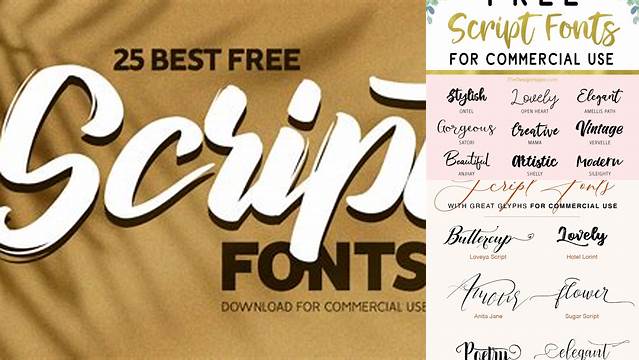
Free Script Fonts: Download For Commercial Use
Are you on the lookout for script fonts that can add a touch of elegance and personality to your designs, and are free for commercial use? Well, you've landed in the right spot! In this comprehensive guide, we're diving deep into the world of script fonts, exploring why they're so popular, what makes them unique, and where you can find some fantastic options without spending a dime. Whether you're a seasoned designer or just starting your creative journey, understanding script fonts and their licensing is crucial for creating impactful and legally sound projects. So, let's get started and discover the beauty and versatility of free script fonts for commercial use!
What are Script Fonts?
First off, let's break down what we mean by script fonts. Think of handwriting – that's essentially what script fonts aim to emulate. These fonts are designed to resemble the flowing strokes of handwriting, creating a sense of personality, warmth, and sophistication. Unlike blocky or sans-serif fonts, script fonts have a more organic and fluid feel. They often feature connecting strokes between letters, mimicking the natural flow of cursive writing. This style can add a touch of elegance, charm, or even whimsy to your designs, depending on the specific font you choose. But script fonts aren't just a single category; they come in a wide variety of styles, each with its own unique characteristics and applications. For instance, you have classic calligraphy-inspired scripts that evoke a sense of tradition and formality, perfect for wedding invitations or high-end branding. Then there are more modern and playful scripts that feel casual and approachable, ideal for logos, social media graphics, or even children's books. There are brush scripts, which have a textured, hand-painted feel, and vintage scripts that harken back to the golden age of advertising. The sheer diversity of script fonts means there's something out there for every project, every brand, and every creative vision. But with this variety comes the importance of understanding how to use script fonts effectively. Because of their decorative nature, script fonts are best used sparingly. Overusing them can make your design cluttered and difficult to read. They generally work best for headings, logos, or short bursts of text where you want to make a statement. Pairing them with a simpler, more legible font for body text is often a winning strategy. This creates a visual hierarchy and ensures that your message is both beautiful and clear. And of course, before you use any font, especially for commercial purposes, it's crucial to understand the licensing terms. Which brings us to our next point...
Why Use Script Fonts?
Let's talk about why using script fonts can be a game-changer for your designs. Script fonts bring a unique flair that other font styles often can't match. They inject personality and warmth into your projects, making them feel more human and less sterile. Think about it – a beautifully crafted script font can instantly elevate a logo, adding a touch of elegance or playfulness, depending on the style. It can transform a simple invitation into a sophisticated announcement, or give a website a friendly and approachable vibe. The versatility of script fonts is one of their greatest strengths. Whether you're aiming for a classic, vintage, modern, or whimsical feel, there's a script font out there that can perfectly capture the mood. A flowing calligraphy-inspired script can evoke a sense of timeless elegance, ideal for wedding invitations, formal events, or high-end branding. A bold brush script can add a dynamic, hand-crafted feel, perfect for logos, posters, or social media graphics. And a playful, casual script can inject a sense of fun and approachability, making it great for children's books, informal invitations, or quirky branding. But the power of script fonts goes beyond just aesthetics. They can also be a powerful tool for storytelling and conveying emotions. The swooping curves and elegant flourishes of a script font can communicate sophistication and luxury. The bold strokes of a brush script can convey energy and excitement. And the delicate lines of a handwritten-style script can create a sense of intimacy and personal connection. When choosing a script font, it's important to consider the message you want to convey and the overall tone of your project. A script font that's perfect for a wedding invitation might not be the best choice for a corporate website, and vice versa. Think about your target audience, the context in which the font will be used, and the emotions you want to evoke. Another key consideration is readability. While script fonts can be visually stunning, they can also be challenging to read if overused or used in the wrong context. That's why it's generally best to use script fonts sparingly, reserving them for headings, logos, or short bursts of text where you want to make a statement. Pairing them with a simpler, more legible font for body text is a great way to create visual contrast and ensure that your message is clear and easy to read. And of course, always remember the importance of licensing. If you're planning to use a script font for commercial purposes, you need to make sure you have the proper license to do so. Which leads us to the next crucial topic...
Where to Find Free Script Fonts for Commercial Use
Alright, let's get to the good stuff: where to find free script fonts for commercial use! The internet is a vast ocean of fonts, but not all of them are free, and even fewer are free for commercial purposes. So, it's crucial to know where to look and how to verify the licensing before you start using a font in your projects. Fortunately, there are some fantastic resources out there that offer high-quality script fonts that you can use without spending a dime, even for your business ventures. One of the best places to start your search is Google Fonts. Google Fonts is a massive library of open-source fonts that are completely free to use for both personal and commercial projects. It's a treasure trove of typographic goodness, and it includes a surprisingly diverse collection of script fonts. The great thing about Google Fonts is that all the fonts are web-optimized, meaning they load quickly and look great on websites. They're also incredibly easy to use – you can download them directly to your computer or embed them in your website using a simple line of code. Some standout script fonts on Google Fonts include "Pacifico," a fun and friendly brush script; "Great Vibes," a classic and elegant calligraphy-inspired script; and "Lobster," a bold and retro script that's perfect for headlines and logos. Another fantastic resource is Font Squirrel. Font Squirrel is a website dedicated to curating high-quality fonts that are free for commercial use. They have a strict policy of only listing fonts that have clear and permissive licenses, so you can be confident that you're not violating any copyright laws when you use a font from their site. Font Squirrel offers a wide range of script fonts, from elegant and formal to playful and casual. They also have a handy "Font Identifier" tool that can help you identify a font you've seen in an image. In addition to these dedicated font websites, there are also several marketplaces and creative resource sites that offer free fonts as part of their promotional efforts. Websites like Creative Market and Envato Elements often have free font bundles that include script fonts. These bundles are typically available for a limited time, so it's worth checking these sites regularly to see what's new. However, when downloading fonts from these types of sites, it's especially important to double-check the licensing terms, as they can vary from font to font. When you find a font that you like, the most important thing to do is to read the license agreement carefully. Look for language that explicitly states that the font is free for commercial use. If you're unsure about the licensing terms, it's always best to err on the side of caution and contact the font designer or foundry directly for clarification. Don't assume that a font is free for commercial use just because you found it on a free font website. Always verify the licensing yourself to avoid any potential legal issues. By using these resources and taking the time to understand font licensing, you can confidently find and use free script fonts in your commercial projects.
Tips for Using Script Fonts Effectively
Okay, you've found some awesome free script fonts for commercial use – now what? It's time to talk about how to use them effectively. Script fonts are beautiful and versatile, but they can also be tricky to work with. Using script fonts well requires a bit of finesse and an understanding of design principles. Here are some tips to help you make the most of script fonts in your projects: 1. Use Sparingly: This is the golden rule of script fonts. Because they are so decorative, they can quickly become overwhelming if used too much. Reserve script fonts for headings, logos, or short bursts of text where you want to make a statement. Avoid using them for long paragraphs or body text, as they can be difficult to read in large blocks. Think of script fonts as the icing on the cake – a little goes a long way! 2. Pair with a Legible Font: Script fonts work best when paired with a simpler, more legible font for body text. This creates visual contrast and ensures that your message is both beautiful and clear. Choose a sans-serif or serif font that complements the style of your script font without competing with it. For example, a classic script font might pair well with a clean sans-serif font like Open Sans or Montserrat. A bold brush script might look great with a sturdy serif font like Roboto Slab or Merriweather. 3. Consider the Context: The style of script font you choose should match the overall tone and message of your project. A flowing calligraphy-inspired script might be perfect for a wedding invitation, but it wouldn't be appropriate for a tech company's website. Think about your target audience, the context in which the font will be used, and the emotions you want to evoke. A playful script font can add a sense of fun and approachability, while a more formal script font can convey elegance and sophistication. 4. Pay Attention to Kerning and Leading: Kerning (the space between individual letters) and leading (the space between lines of text) are crucial for readability, especially with script fonts. Because script fonts often have intricate letterforms and connecting strokes, they can sometimes appear crowded or uneven if the kerning and leading aren't adjusted properly. Take the time to fine-tune these settings to ensure that your text is easy to read and visually appealing. 5. Avoid All Caps: Script fonts are generally not designed to be used in all caps. The connecting strokes and flowing letterforms that make script fonts so beautiful can become awkward and difficult to read when capitalized. Stick to lowercase or title case (capitalizing the first letter of each word) for script fonts. 6. Test for Readability: Always test your script font in different sizes and on different backgrounds to ensure that it's legible. What looks great on your computer screen might not translate well to print or a mobile device. Pay particular attention to small font sizes, as script fonts can sometimes become illegible at smaller sizes. 7. Don't Overdo the Flourishes: Many script fonts include decorative flourishes and swashes, which can add a touch of elegance and personality. However, it's easy to overdo these elements, making your design cluttered and distracting. Use flourishes sparingly and strategically to enhance your design, not overwhelm it. 8. Use Font Management Software: If you're working with a lot of fonts, font management software can be a lifesaver. These tools allow you to organize your fonts, activate and deactivate them as needed, and preview them before using them in your designs. This can help you keep your font library organized and avoid performance issues caused by having too many fonts installed. By following these tips, you can use script fonts effectively to add personality, elegance, and visual interest to your designs. Remember, the key is to use them thoughtfully and strategically, and always prioritize readability and clarity.
So, there you have it, guys! A comprehensive guide to finding and using script fonts for commercial use. We've covered everything from what script fonts are and why they're so popular, to understanding font licensing and where to find free options. We've also shared some essential tips for using script fonts effectively in your designs. Hopefully, you're now feeling confident and inspired to incorporate these beautiful fonts into your creative projects. Remember, script fonts can add a touch of elegance, personality, and warmth to your designs, making them feel more human and engaging. But it's crucial to use them thoughtfully and strategically, always keeping readability and context in mind. And most importantly, always, always double-check the licensing terms before using a font for commercial purposes. There are so many fantastic free script fonts available for commercial use, so there's no need to take any unnecessary risks. With a little research and attention to detail, you can find the perfect script font to elevate your designs and help you achieve your creative goals. Whether you're designing a logo, creating marketing materials, or building a website, script fonts can be a powerful tool in your typographic arsenal. So, go ahead and explore the world of script fonts – experiment with different styles, pair them with other fonts, and see what kind of magic you can create. And don't forget to have fun! Designing with fonts should be an enjoyable and creative process. By following the tips and guidelines we've shared in this guide, you can confidently use script fonts to bring your creative visions to life. Happy designing!